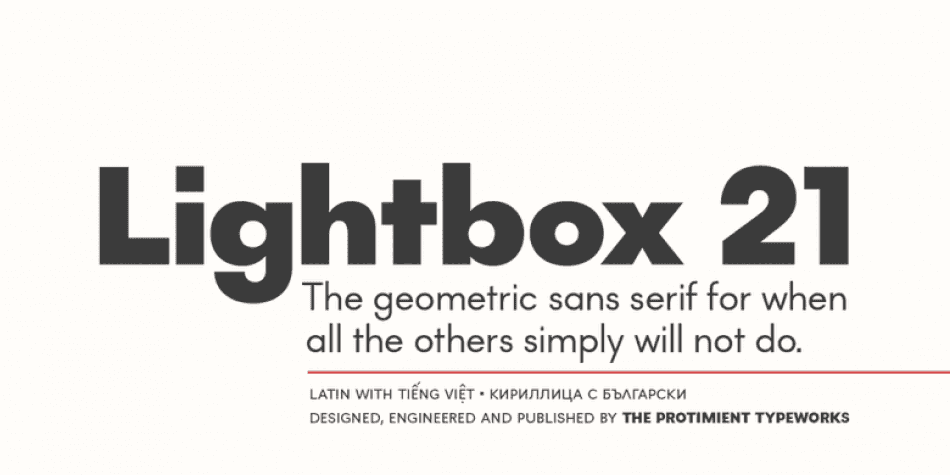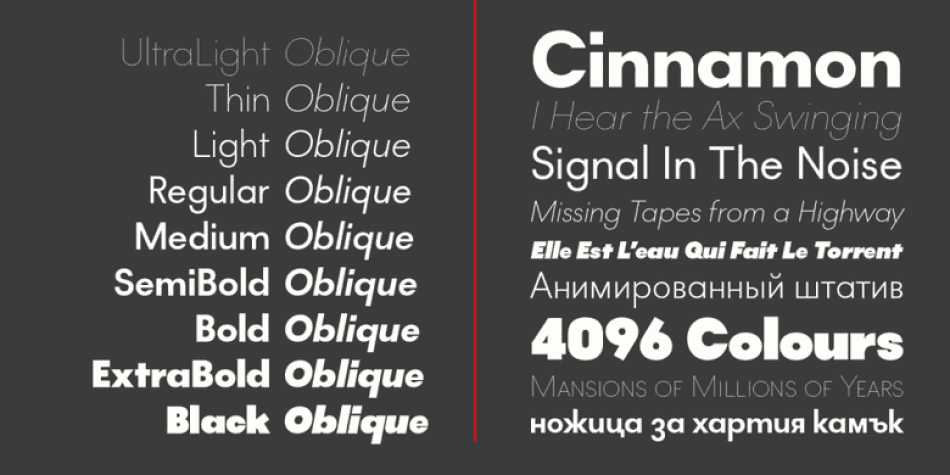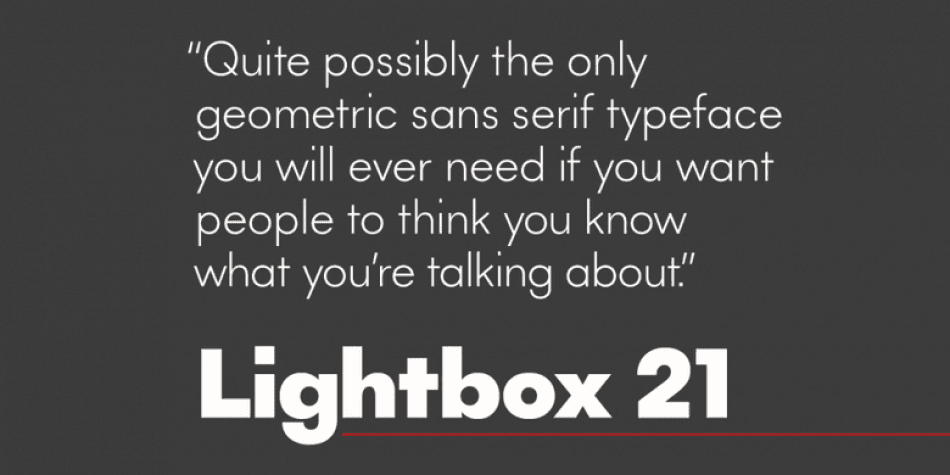
Lightbox 21 Sans Serif Font Family is an entirely fresh update of my earlier geometric sans serif designs. While Lightbox was initially built around using Golden Ratio proportions into each letterform, its latest edition makes significant advancements by eliminating that concept resulting in a more appealing, natural typeface that retains elements from both versions despite not being directly tied to either one.